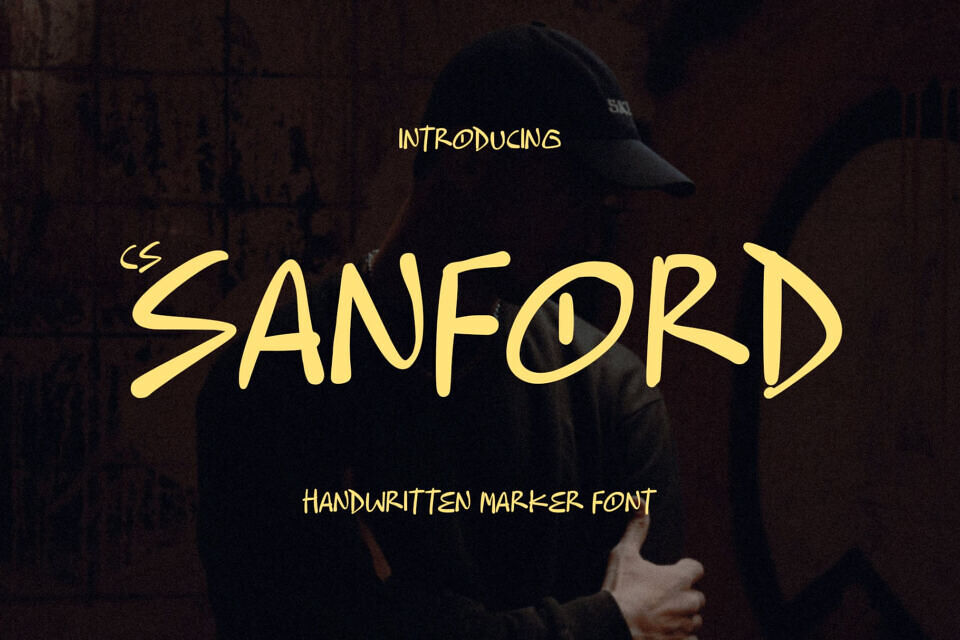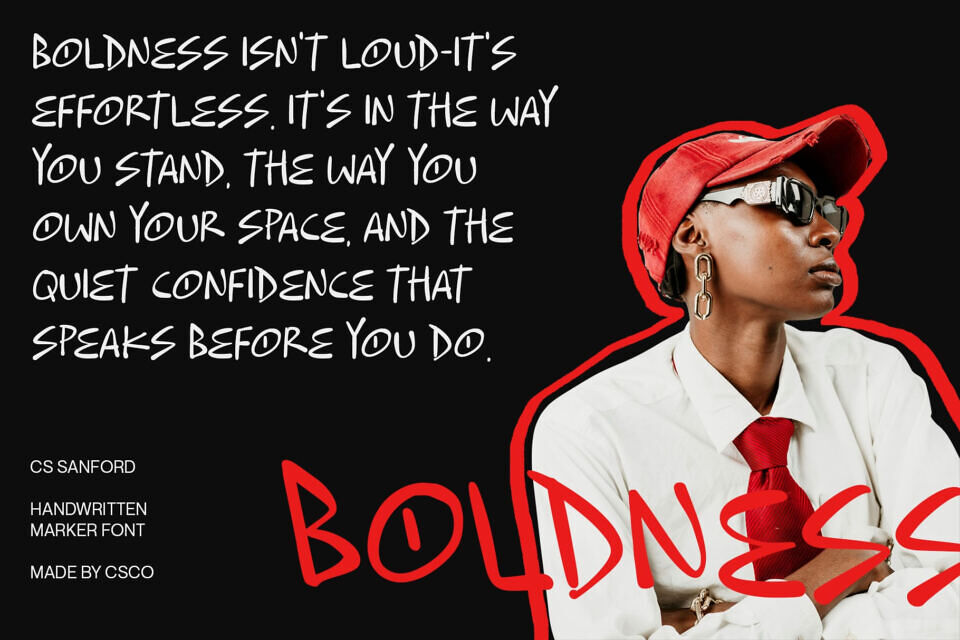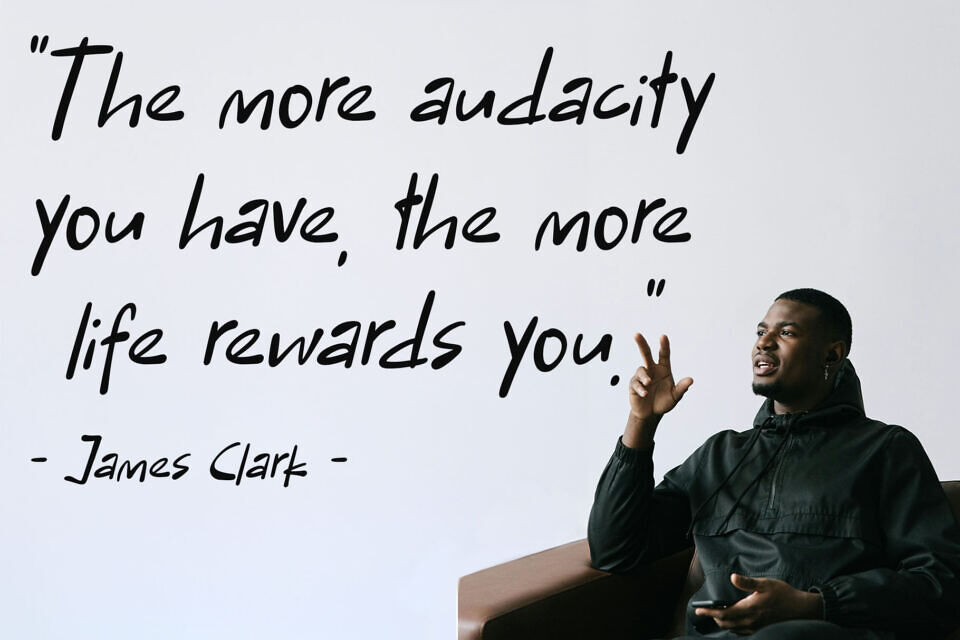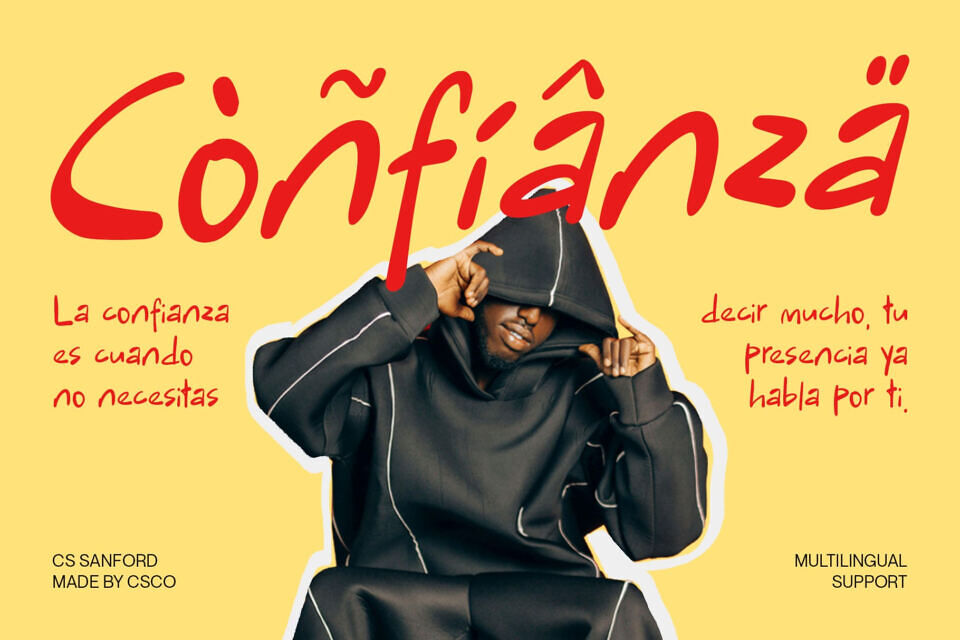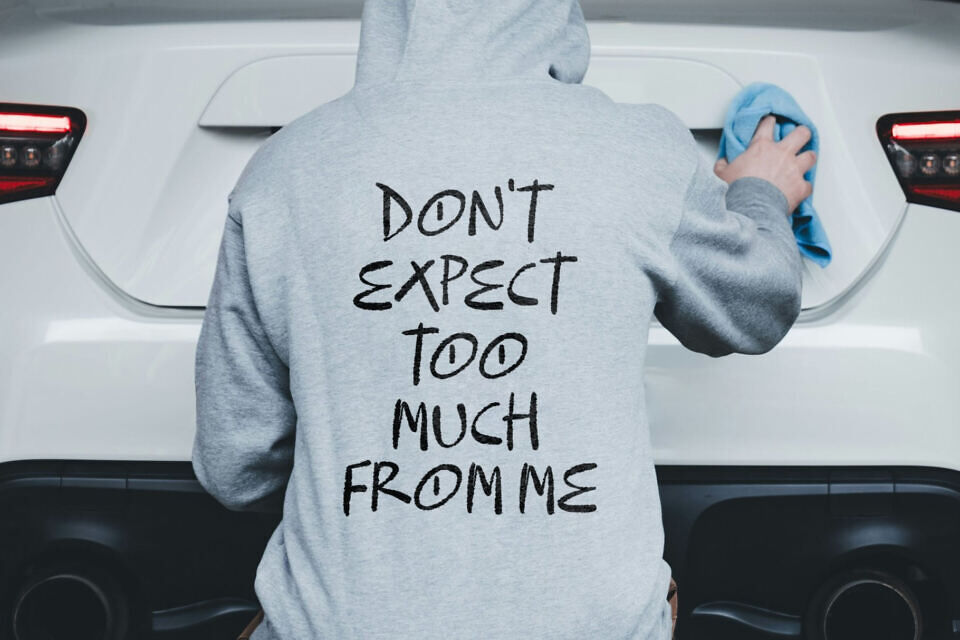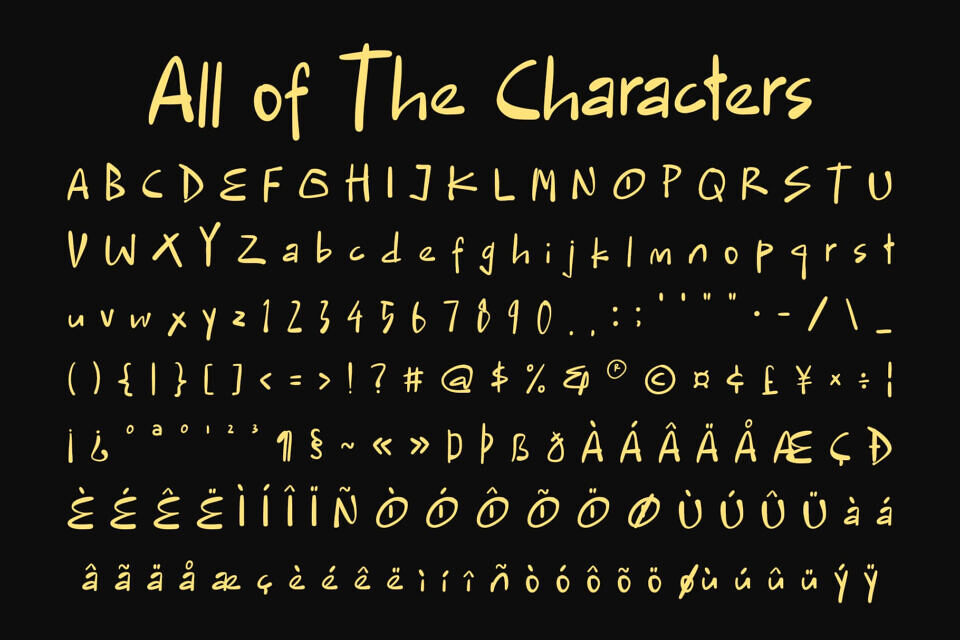
Sanford is a playful and expressive ink handwritten font with sans serif style that captures the effortless beauty of natural pen strokes and can also include texture markers. Its smooth flow and irregular details bring authenticity and warmth to every word, creating a connection that feels both personal and genuine.
Blending the spontaneous movement of ink with a modern handwritten style, this font delivers an easygoing yet stylish appearance. The gentle curves and natural rhythm of each letter make it ideal for projects that need a relaxed, approachable touch such as quotes, journals, or lifestyle branding.